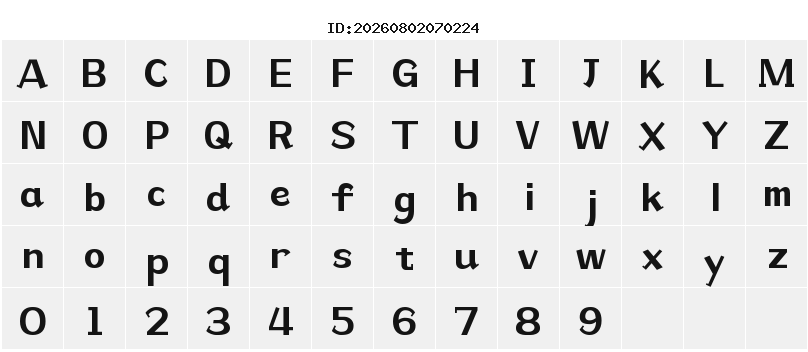
造字工房摩登(非商用)常规体 Preview
• Font Name: 造字工房摩登(非商用)常规体
• Full Font Name: 造字工房摩登(非商用)常规体
About 造字工房摩登(非商用)常规体.ttf
造字工房摩登(非商用)常规体.ttf is a modern, elegant sans-serif font designed for ultimate readability and visual harmony. Perfect for branding, headlines, web design, and print materials.